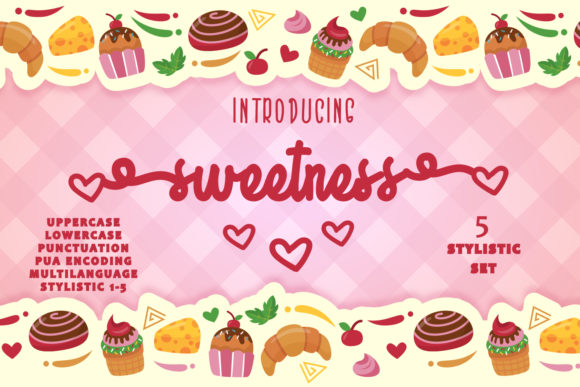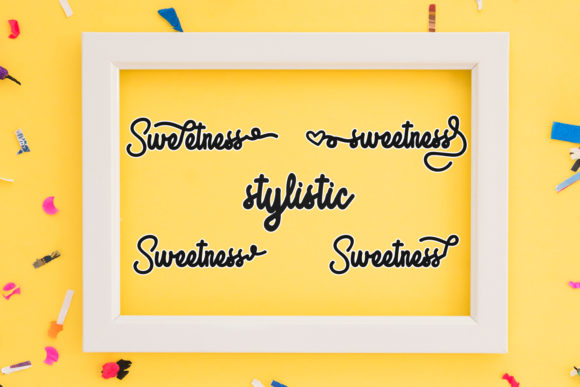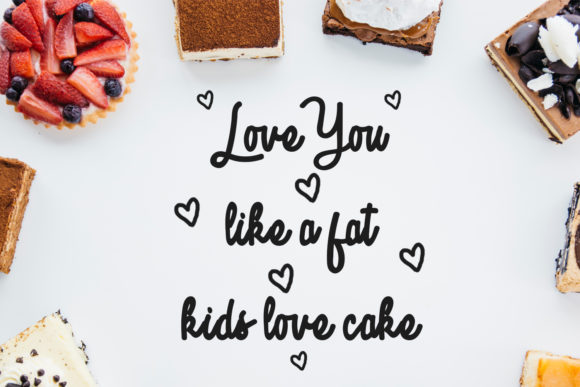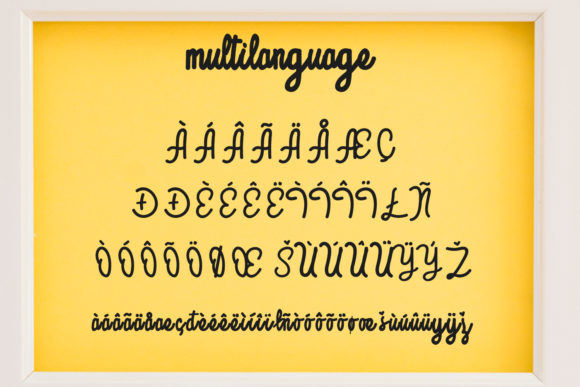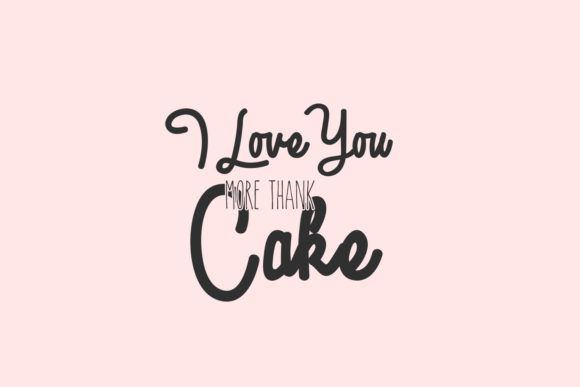
Sweetness Font
About Sweetness Font
Sweetness is a fun and lovely handwritten font with a smart feel. It will add a unique twist to any design project.